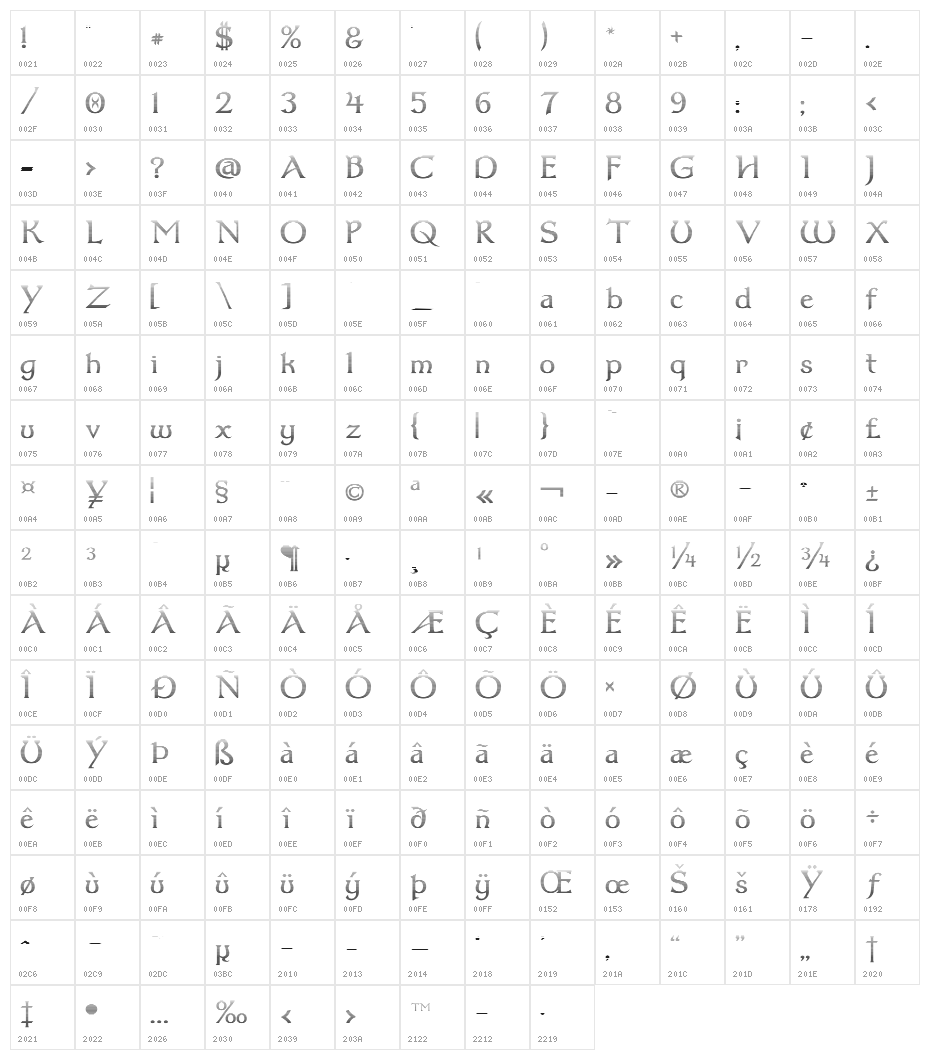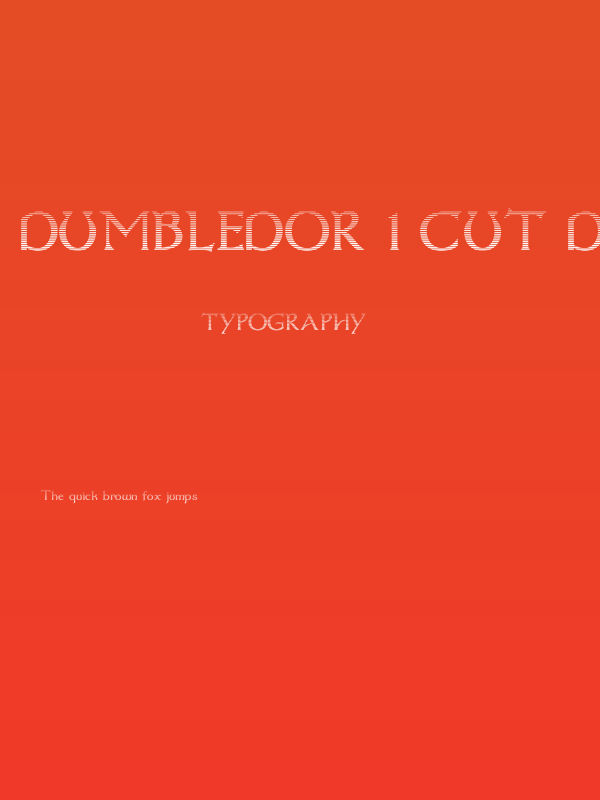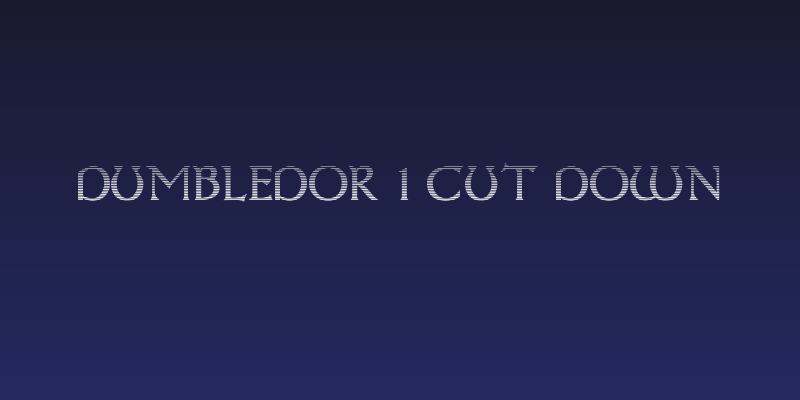
Dumbledor 1 Cut Down Font
Dumbledor 1 Cut Down Description
This font features a unique and striking design with horizontal line patterns cutting through each character, creating a textured and dynamic appearance. The uppercase and lowercase letters maintain a consistent style, with sharp serifs and a slightly condensed form. The numbers and special characters follow the same design principles, ensuring uniformity across the entire typeface. This font's distinct style makes it stand out, offering a modern twist on traditional serif fonts. The horizontal lines add a sense of movement and depth, making it visually engaging and suitable for creative projects.
Proposed ProjectsIdeal for branding, posters, and editorial design where a bold and creative statement is needed.